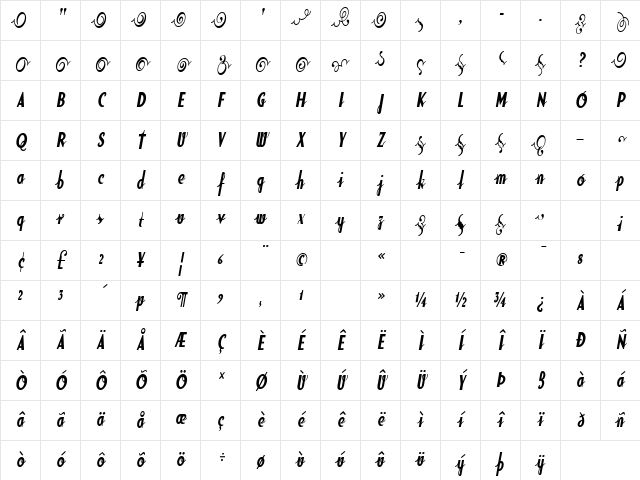
SodaScript BoldExtras ScriptBoldExtras Free Font
SodaScript BoldExtras ScriptBoldExtras
Style: ScriptBoldExtras
Design Context for SodaScript BoldExtras
SodaScript BoldExtras flows with the natural rhythm of handwritten lettering, making it ideal for designs that call for warmth and personal expression. Its bold stroke weight gives it real presence on the page.
Font Pairing: Combine SodaScript BoldExtras with a simple geometric sans for maximum contrast - the tension between flowing curves and clean structure is a classic typographic pairing.
Pro Tip: Use SodaScript BoldExtras for short runs of text - names, titles, or taglines. Extended body copy in script faces tires the eye quickly.